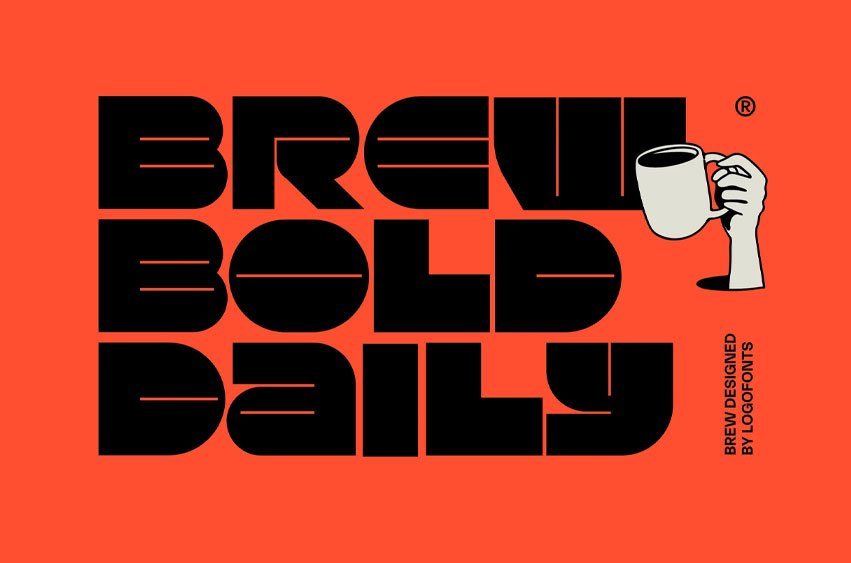
Brew Font is a modern display font crafted with bold geometric shapes and a clean visual structure to create unforgettable branding experiences. Designed for elegance and crafted for timeless branding, this font perfectly blends modern style with minimalist aesthetics, making it ideal for logo design, fashion branding, corporate identity, editorial layouts, packaging, and creative intro visuals. Its strong character forms and smooth curves bring a confident and professional appearance that instantly captures attention.
Created for brands that value bold simplicity and modern elegance, Brew works beautifully across posters, clean typography layouts, social media content, geometric branding systems, and contemporary visual identities. The stylish display style delivers a unique balance between minimal design and powerful presence, making it suitable for fashion campaigns, corporate presentations, modern logos, and premium brand projects. Brew transforms every composition into a clean, impactful, and timeless visual statement.
Designed for elegance, crafted for timeless branding.